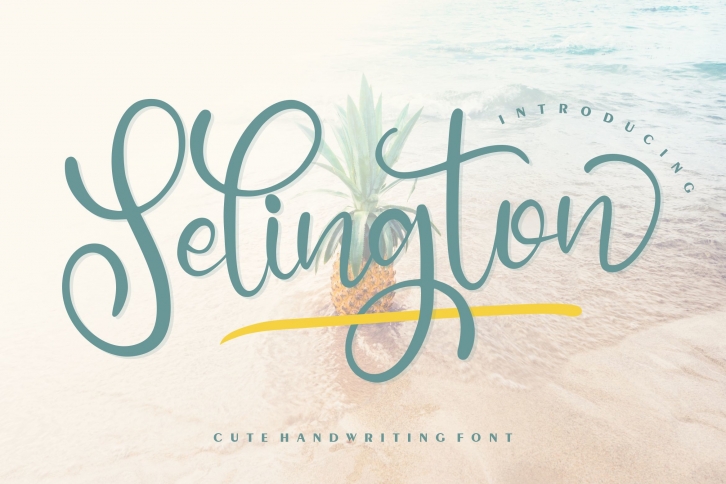
Selington is a delicate and elegant handwritten font. Its distinct and well balanced letters make this font a masterpiece. Fall in love with its incredibly versatile style and use it to create spectacular designs!